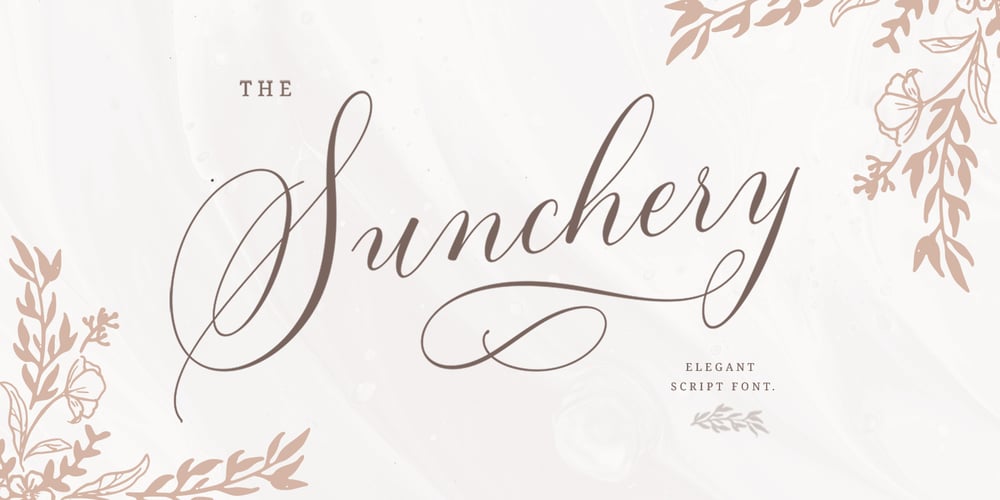
Sunchery
Sunchery font
Sunchery Font Family was designed by Faisal Tanjung and published by sizimon. Sunchery contains 2 styles and family package options. Sunchery Script is a modern calligraphy font. It is elegance, modernity, and friendly. Sunchery a beautiful for wedding card design, logotype, website header, fashion design, and any more. It contains a full set of lower & uppercase letters, a large range of punctuation, numerals, and multilingual support.Sunchery Include : Uppercase, lowercase, numeral, punctuation & Symbol Multilingual support Stylistic alternates Standard ligatures 28 Decorative Shapes PSD + EPS + PNG 17 Floral Illustrations PSD + EPS + PNG PUA Encoded Characters Fully accessible without additional design software. To access the alternate glyphs, you need a program that supports OpenType features such as Adobe Illustrator CS, Adobe Photoshop CC, Adobe Indesign and Corel Draw.If you have any question please do not hesitate to contact me.Thank You!